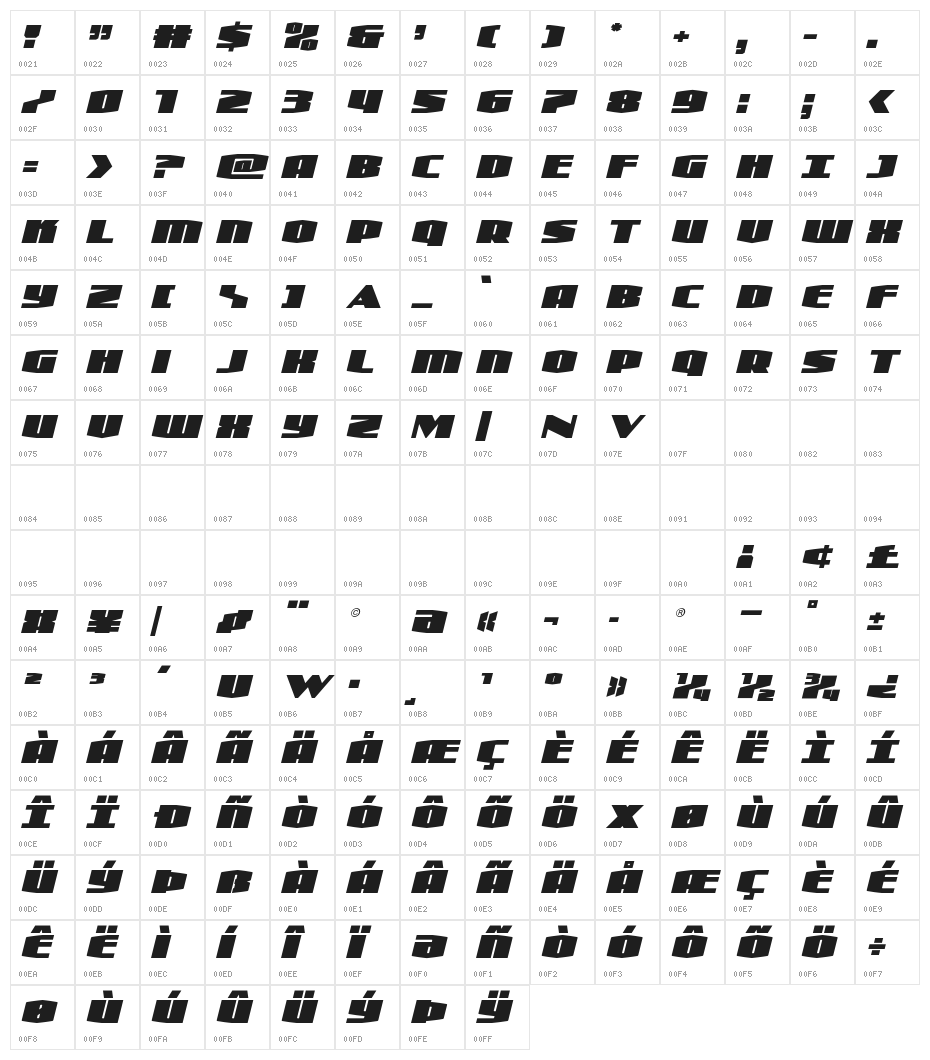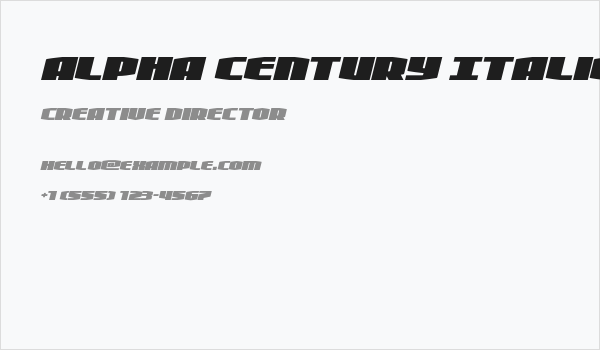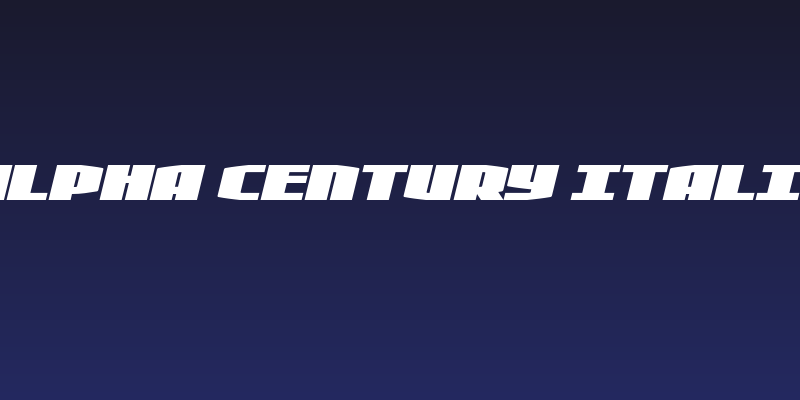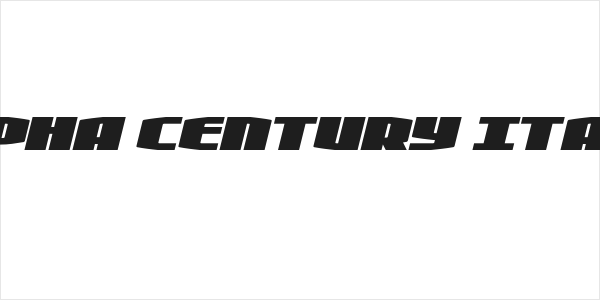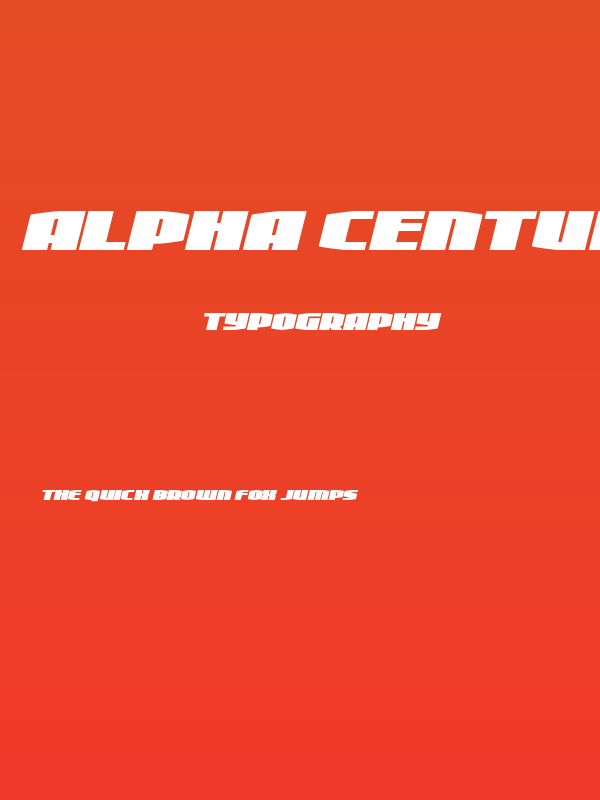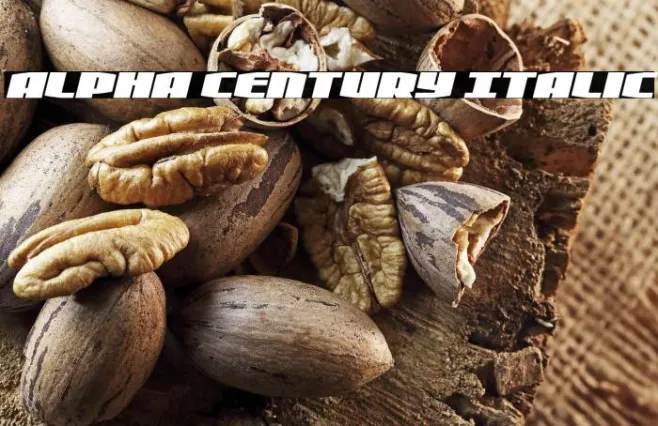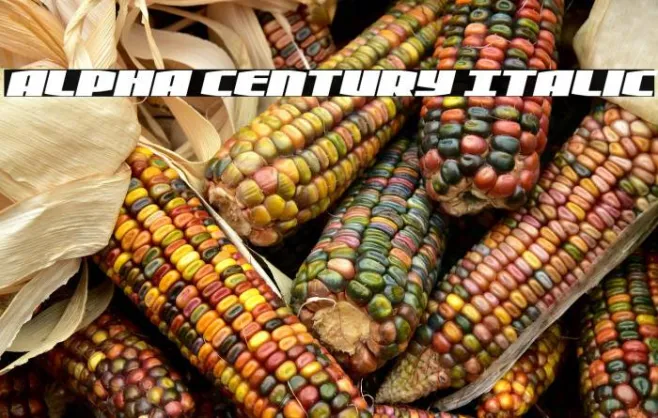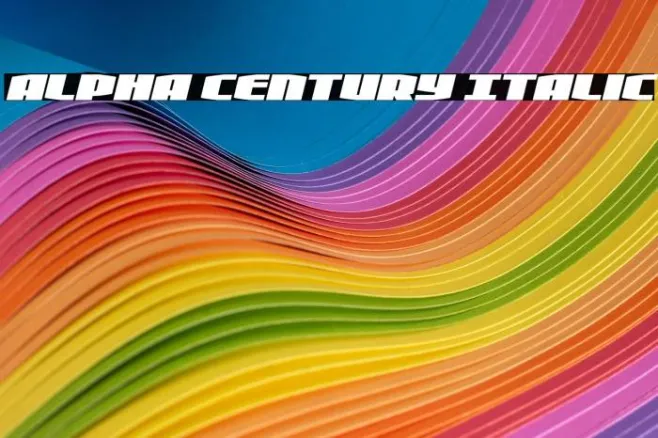
Alpha Century Italic Font
Alpha Century Italic Description
This font features a bold, italicized style with a futuristic and dynamic appearance. The characters are wide and angular, giving a sense of speed and modernity. The uppercase and lowercase letters maintain a consistent slant, enhancing the italic effect. The numbers and special characters follow the same design principles, ensuring uniformity across all glyphs. The font's boldness and unique style make it stand out, suitable for projects that require a strong visual impact.
| Proposed Projects | Ideal for sci-fi themed designs, video game titles, movie posters, and branding that requires a modern, edgy look. |